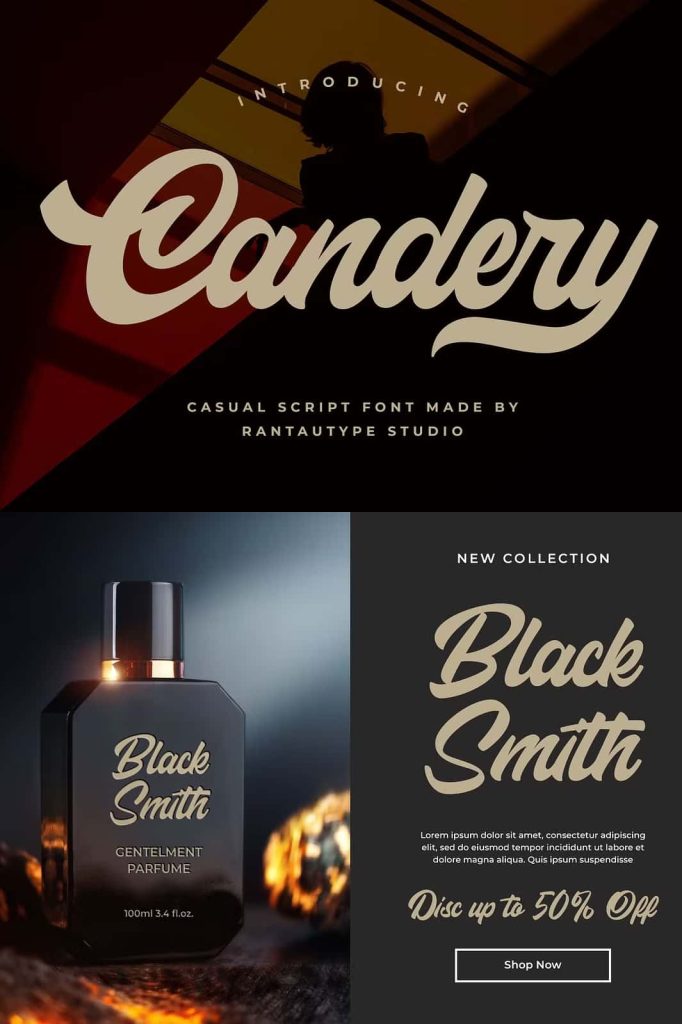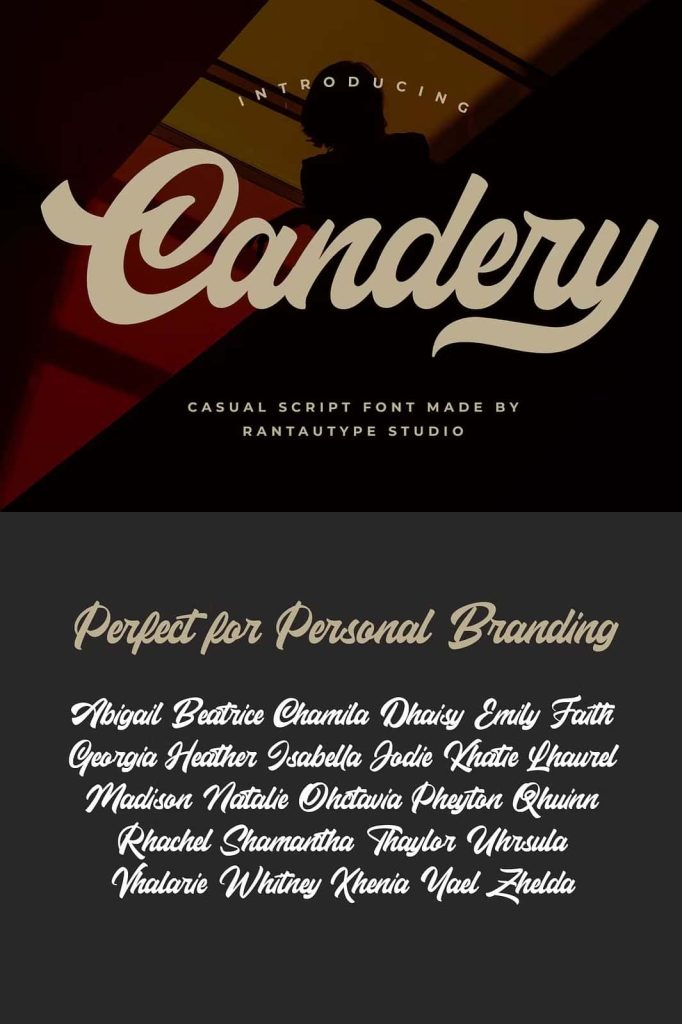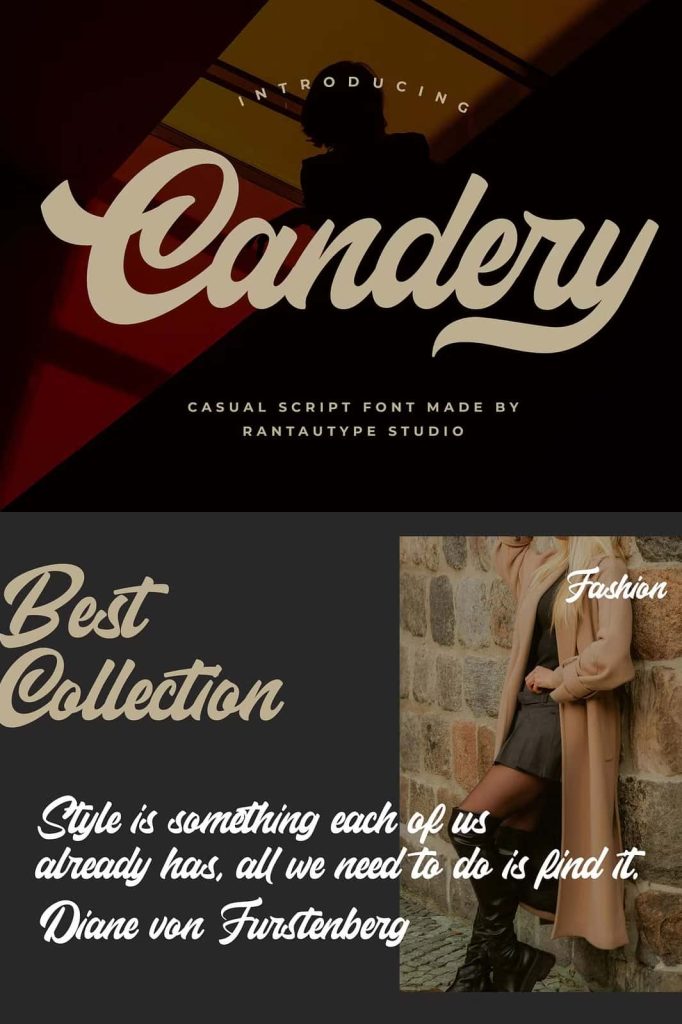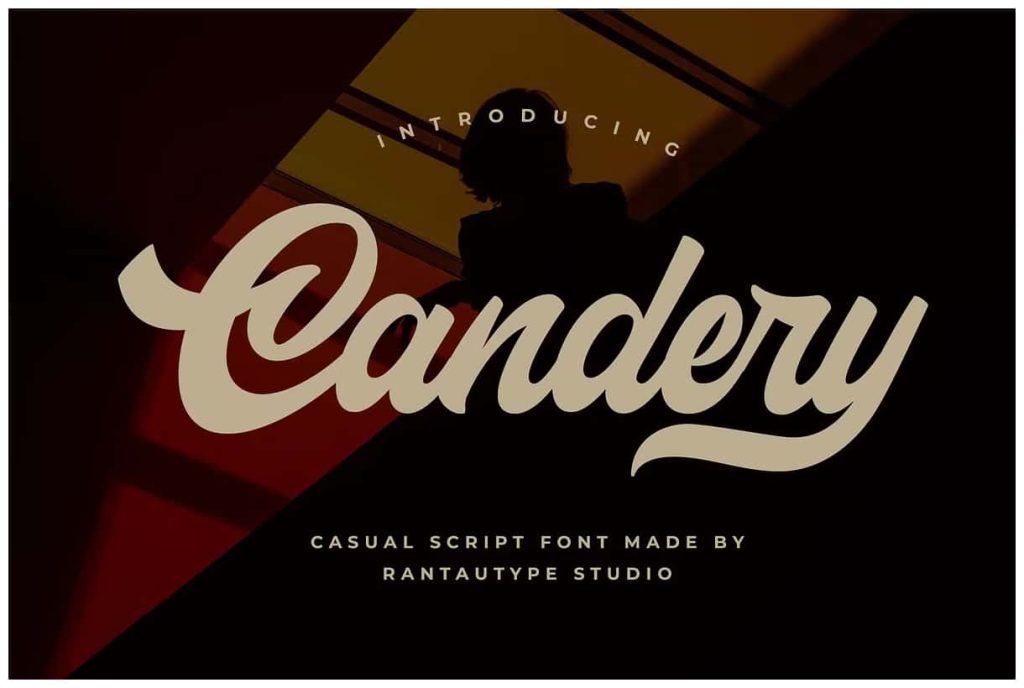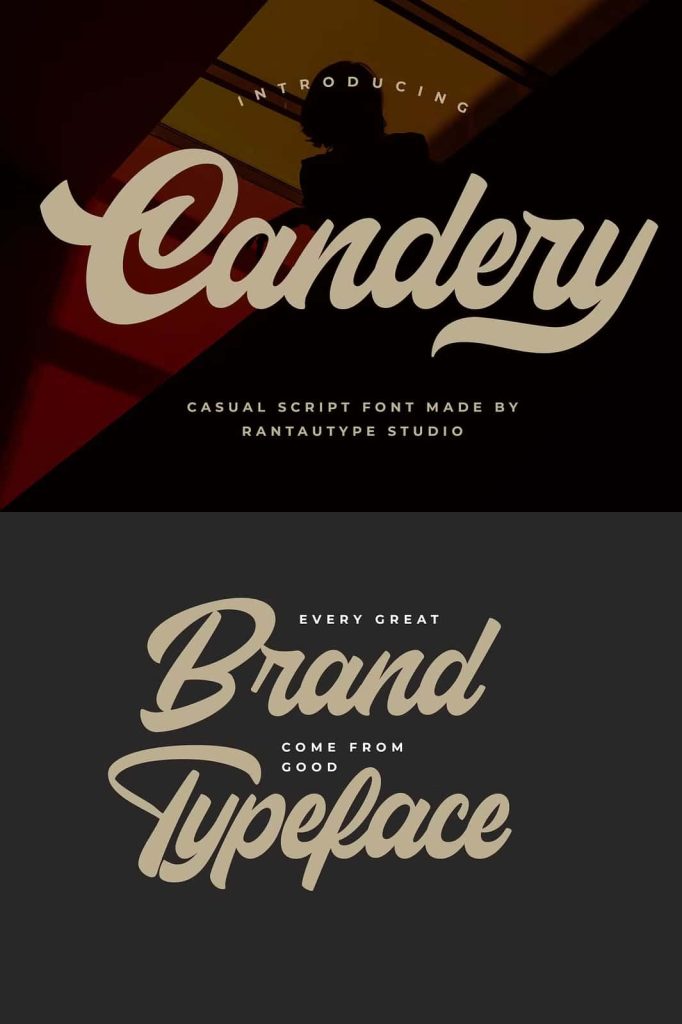
Candery is casual script font made with passion and style. Candery bring authentic handwritten with stylist and modern to make your design project stand out